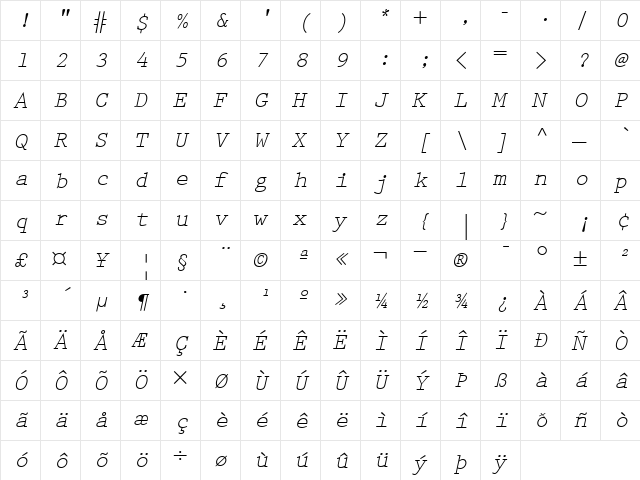
PrestigeEliteSlanted RomanItalic
Design Context for PrestigeEliteSlanted Typeface
PrestigeEliteSlanted offers clean, dependable letterforms without strong stylistic allegiance, making it a practical choice for designers who need flexibility. The dynamic lean of this cut emphasises speed and emphasis in any layout.
Pro Tip: Try PrestigeEliteSlanted for annotation and caption copy alongside an upright companion — the contrast in angle creates a dynamic but ordered typographic system.